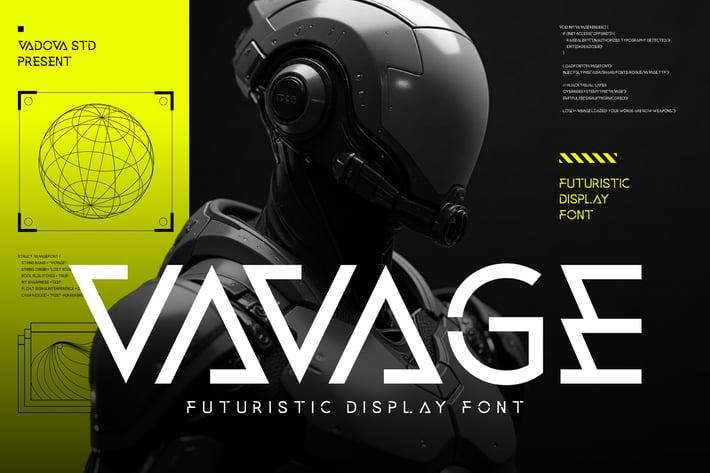
Vavage Creative Display Font
VAVAGE is a cutting-edge futuristic display font designed for projects that demand a bold, tech-driven edge. With angular forms and cyberpunk undertones, this typeface channels a digital rebellion aesthetic—perfect for game interfaces, sci-fi posters, tech branding, or glitch-themed visuals. Its sharp structure and unique characters make it ideal for headlines, logos, and any visual identity set in a virtual, post-human, or high-tech future.